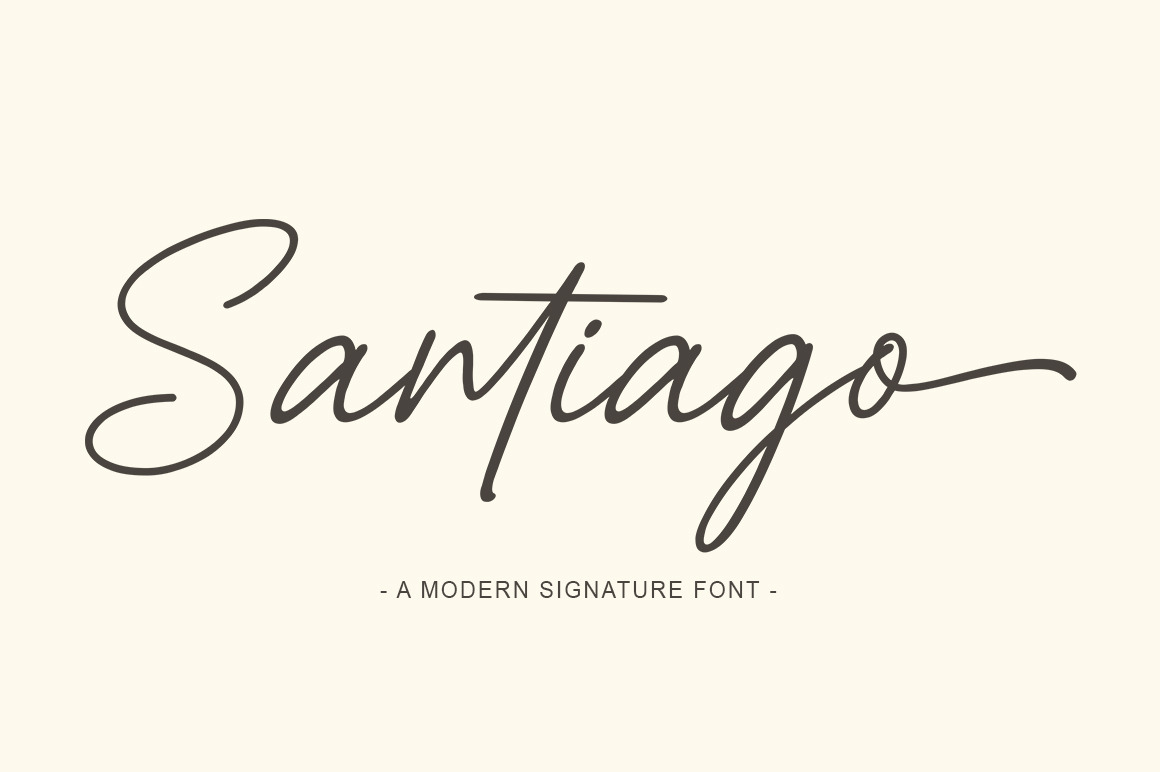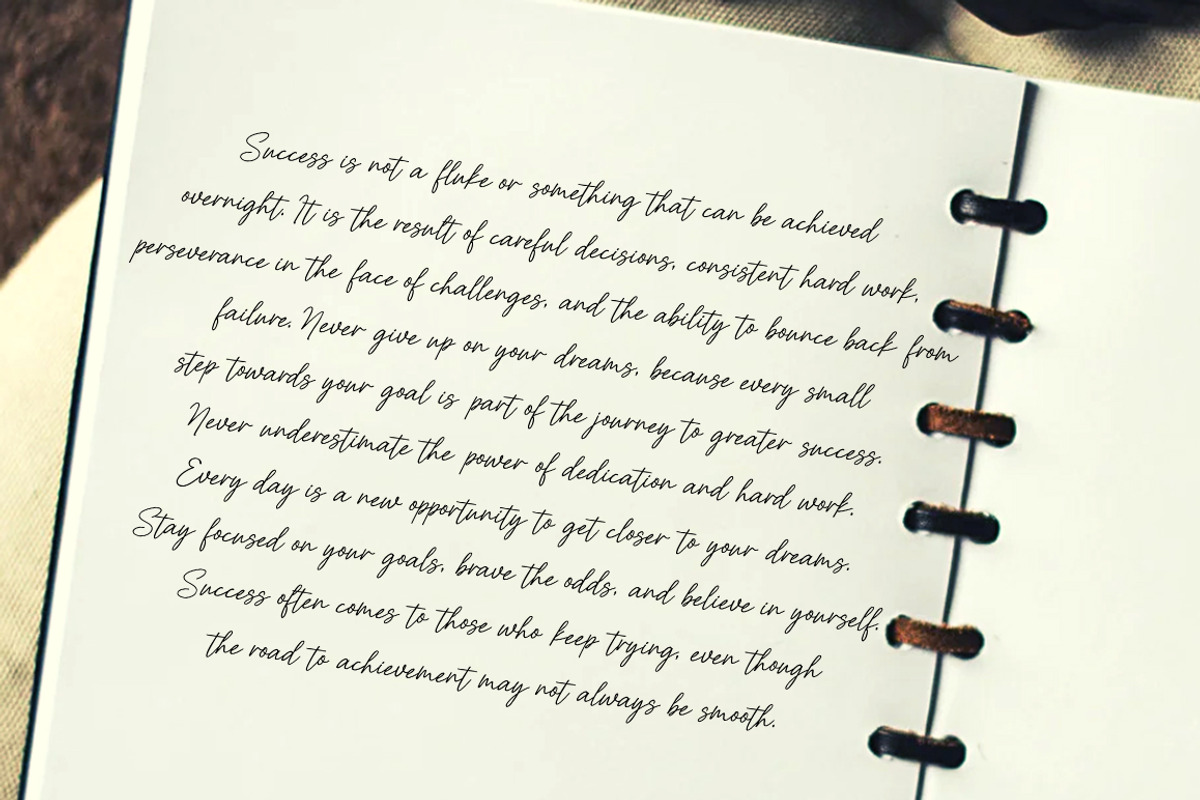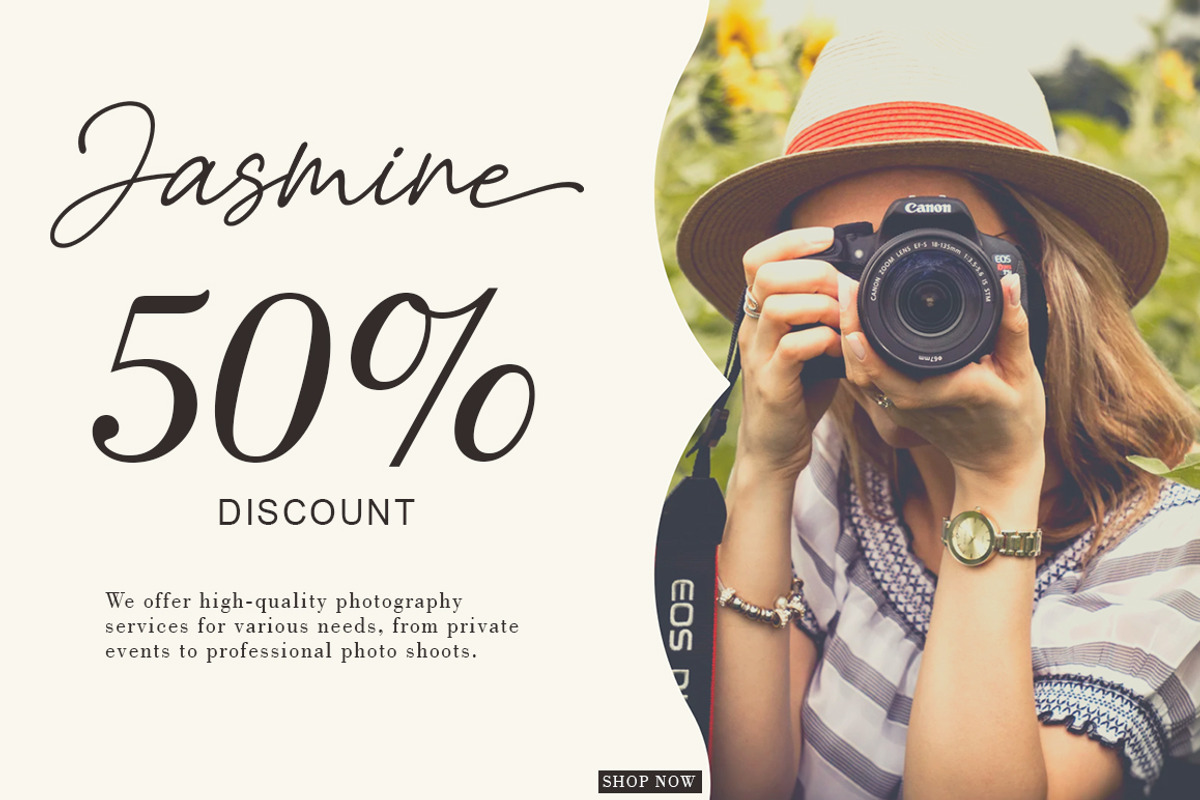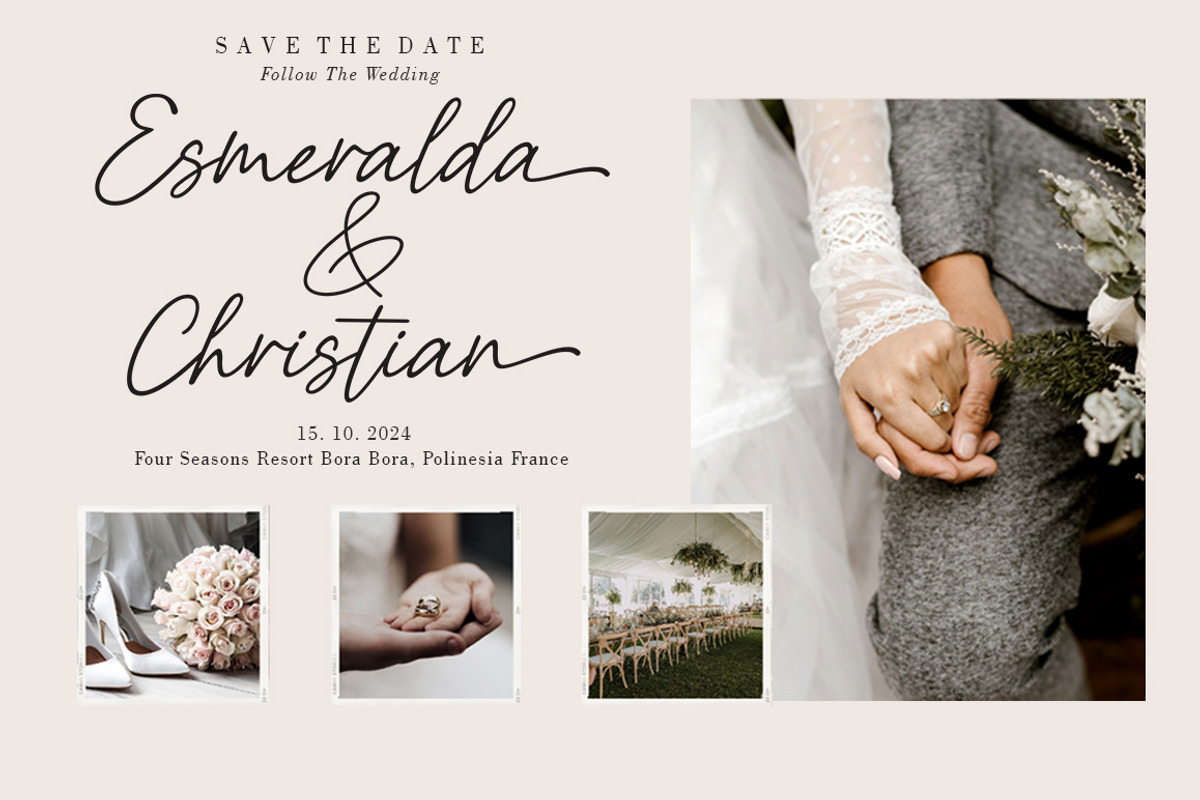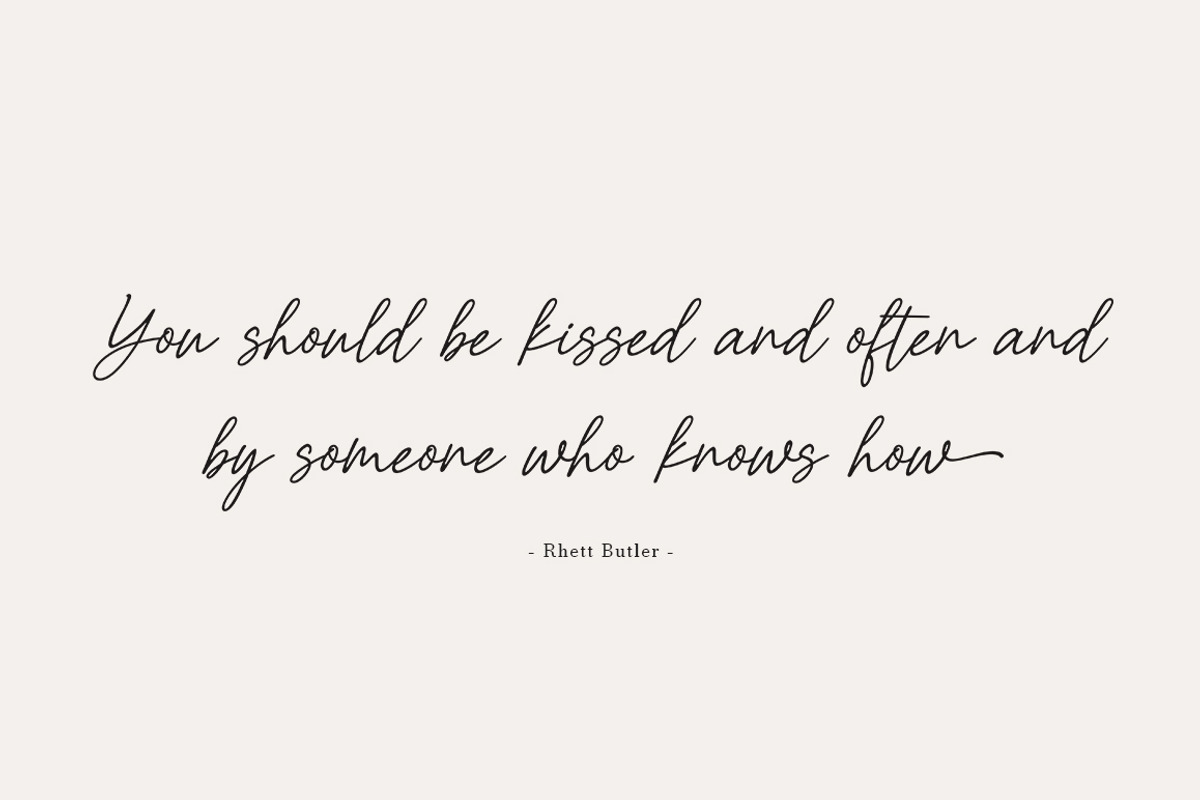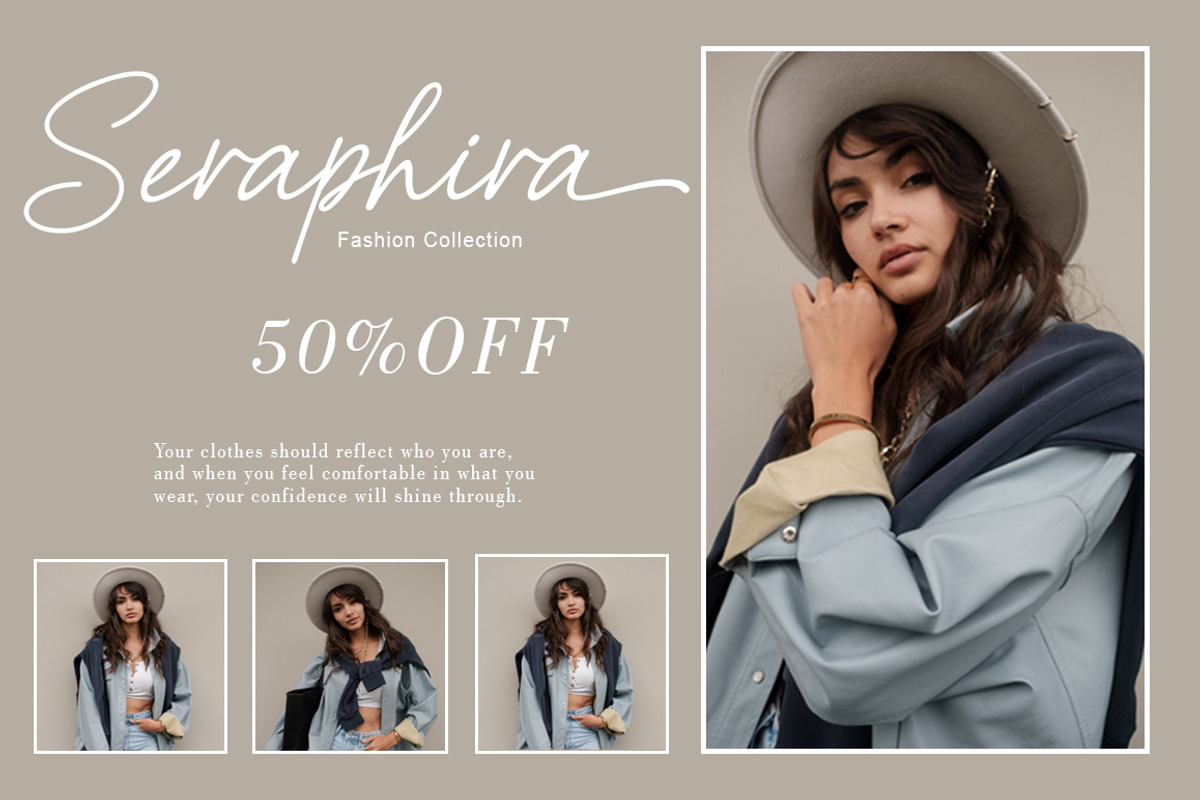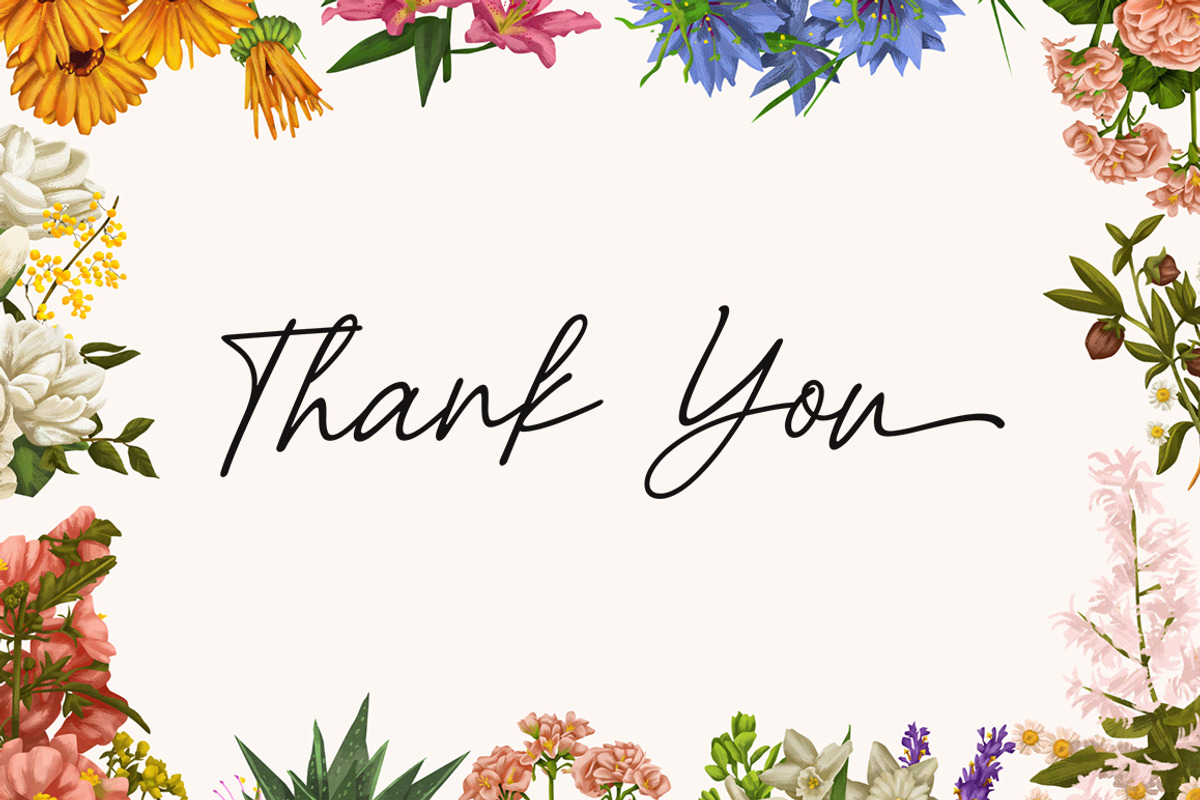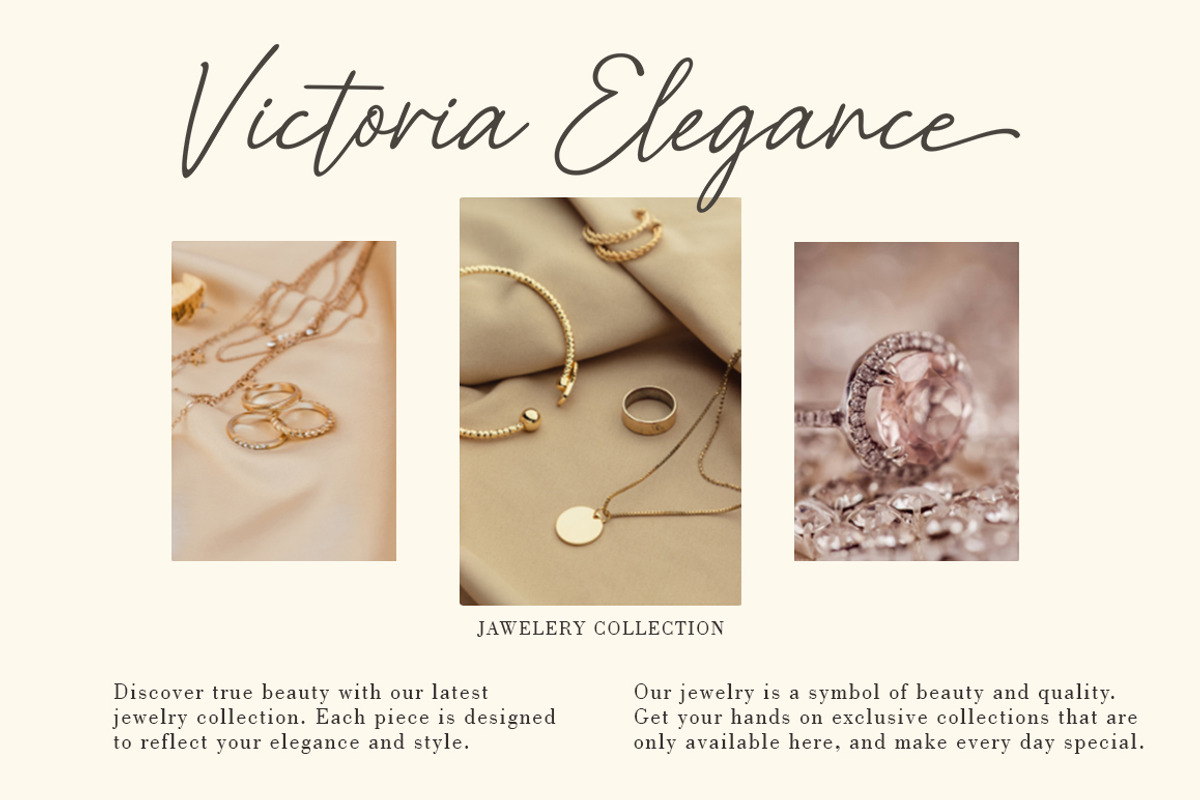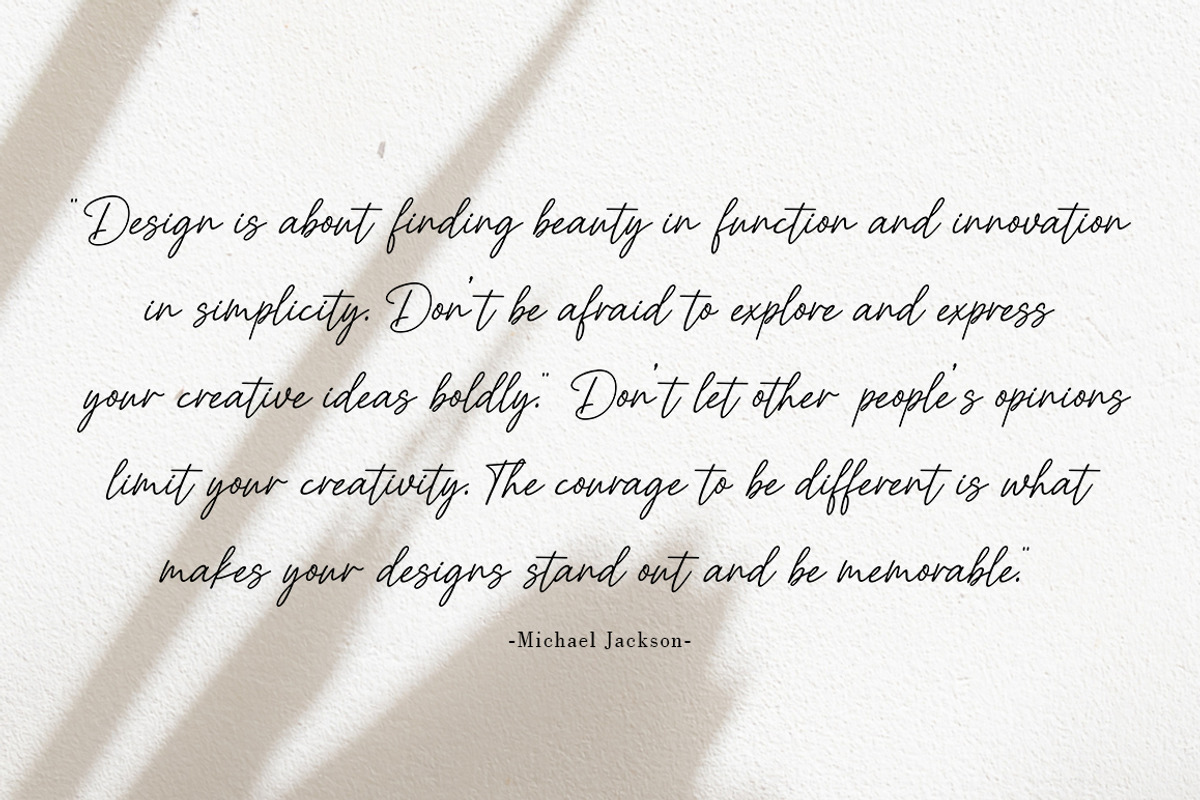
Santiago | Handwritten Font
Santiago is the perfect mix of Luxury and Unique. Santiago is perfect for logos, social media posts, invitations and many other projects. It comes with multilingual support as well. These notes include:
• Thin and realistic signature font containing substitutes, lowercase, uppercase, all punctuation & numbers. language support.